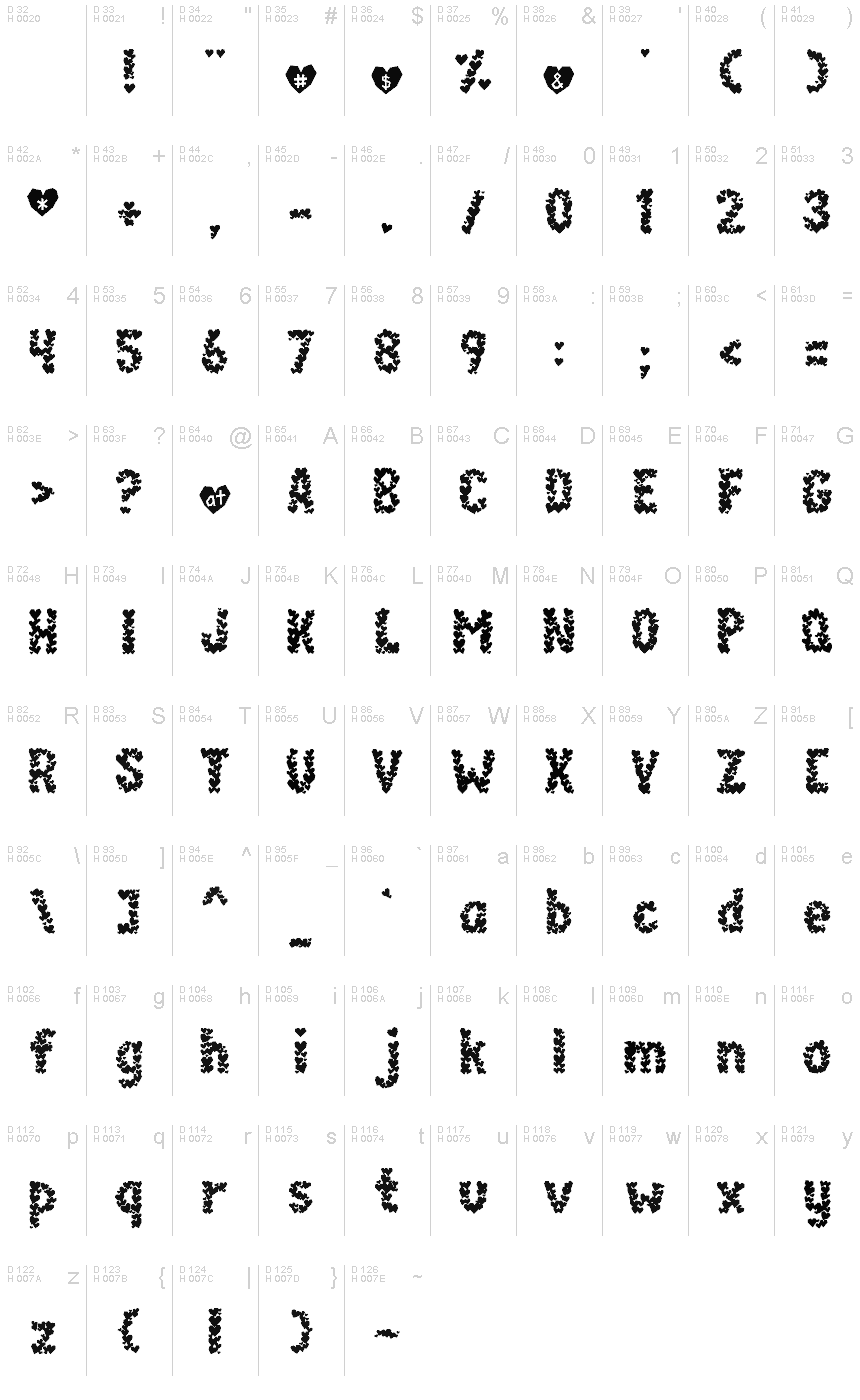
Paper Hearts
Paper Hearts is a free decorative display font with letterforms filled from small heart-shaped cutouts and uneven paper-like pieces. The shapes stack and cluster across each character, giving the alphabet a handmade collage texture that feels more like crafted stationery than standard lettering.
This free font works well for love notes, greeting cards, wedding pieces, scrapbook titles, party invitations, and Valentine themed labels. Paper Hearts brings a clear paper-craft accent to designs where a soft romantic motif matters, and it also suits short quotes, poster details, and playful packaging that needs a cut-paper finish.